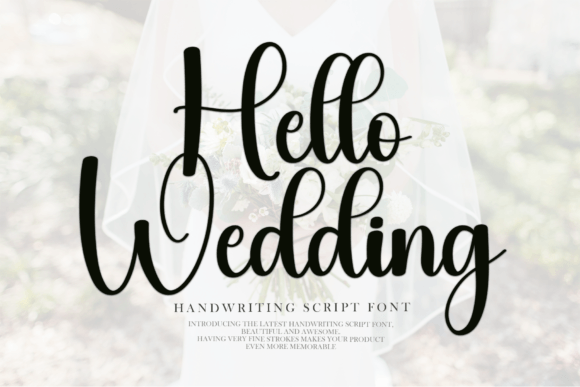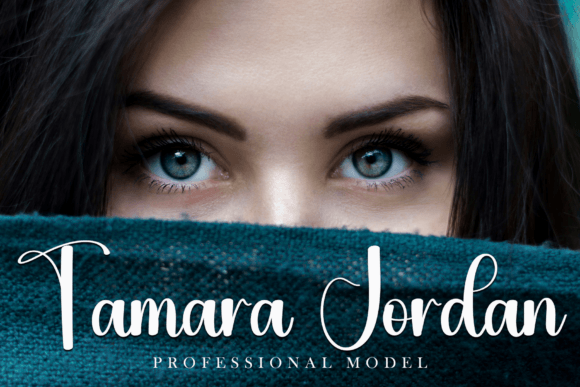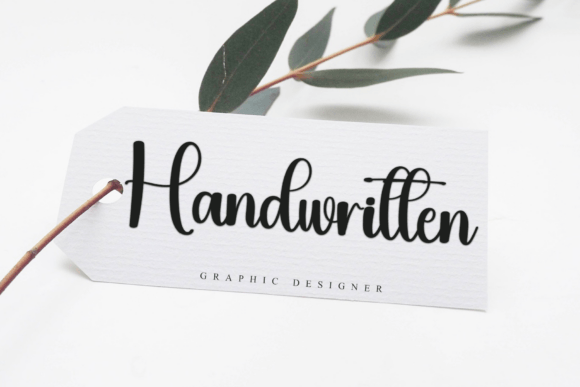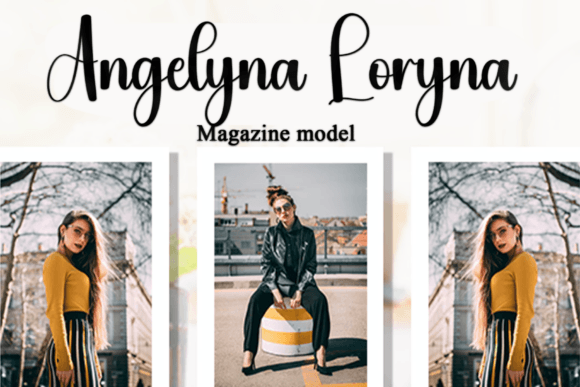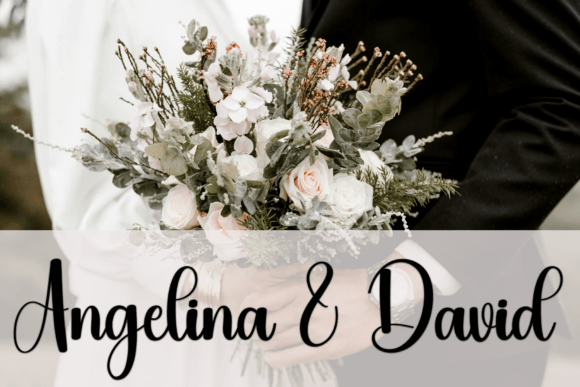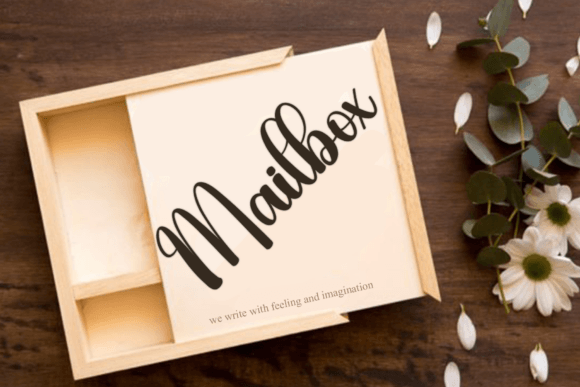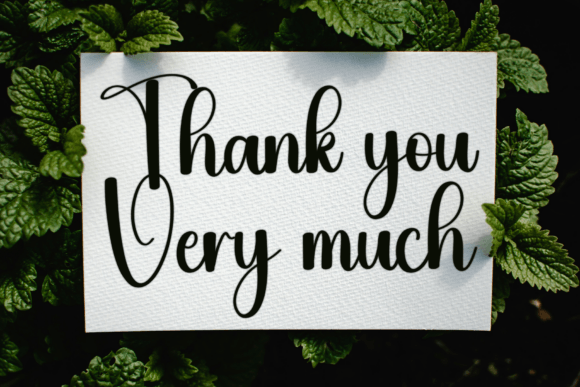
Unlocking the Magic of Handwritten Charm: Hello Wedding Font
Have you ever stared at a blank sheet of paper, pen in hand, trying to put your feelings into words? That’s exactly where the magic of handwritten fonts like Hello Wedding comes in. This delightful typeface is designed to evoke the warmth and personality of a handwritten note, making it perfect for conveying heartfelt messages.
Hello Wedding Font is a beautifully crafted handwritten font that adds a touch of authenticity and charm to any design. Whether you’re creating wedding invitations, greeting cards, or branding materials, this font is sure to bring a smile to your audience’s faces. As a designer, you’ll appreciate the versatility and warmth that Hello Wedding Font brings to your projects, making it a valuable addition to your toolkit.
Hello Wedding Font Key Features
- Unique Characteristic: Hand-drawn, whimsical design elements that evoke a sense of romance and elegance, making it perfect for wedding invitations, stationery, and other special occasions.
- Style Variations: Includes 6 different font styles, each with its unique flair, allowing designers to experiment and find the perfect fit for their project.
Hello Wedding Font Review
Hello Wedding Font is a beautiful and elegant script font designed specifically for wedding invitations and stationery. Here’s what I think about it:
- Unique and beautiful design: Hello Wedding Font has a unique and beautiful design that is perfect for weddings and special occasions.
- Perfect for invitations: The font is designed specifically for wedding invitations and stationery, making it a great choice for this type of project.
- Limited character set: The font has a limited character set, which may not be suitable for longer texts or body copy.
- No Cyrillic or Asian support: The font does not support Cyrillic or Asian languages, which may be a limitation for some designers.
- No bold or italic versions: The font does not come with bold or italic versions, which may limit its versatility.
Overall, I think Hello Wedding Font is a beautiful and elegant font that is perfect for weddings and special occasions. While it has some limitations, it is a great choice for designers who need a unique and beautiful script font for their projects.